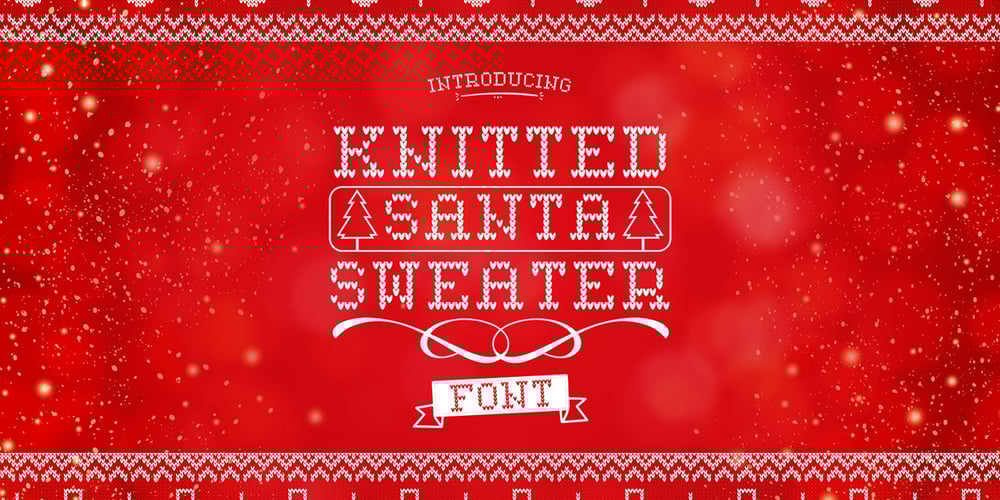
Knitted Santa Sweater Font Family was designed by Mohammed Lamjidi and published by Beast Designer. Knitted Santa Sweater contains 1 styles and family package options. Knitted Santa Sweater is an incredibly interesting knitted decorative font. Add it to your collection of holidays fonts and create your own unique Christmas designs.